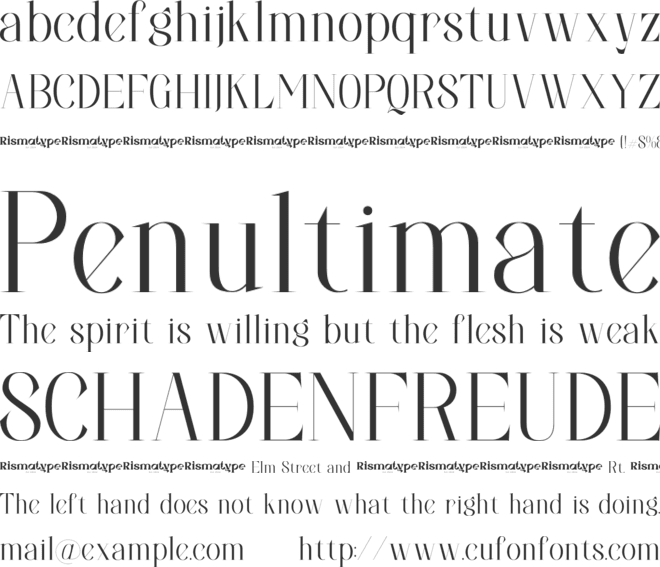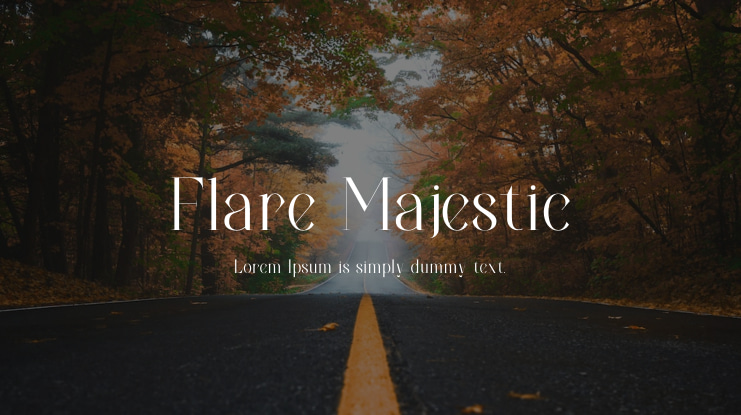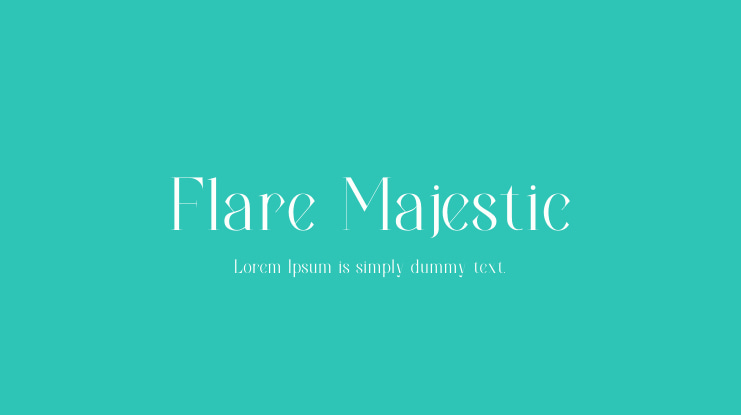
Flare Majestic Font Family
Risma Mulyasari
Flare Majestic
Discover the unique charm and distinctive character of Flare Majestic. Specifically designed to deliver a professional and modern look, this font is perfect for a wide range of creative projects, from branding and logos to posters and social media content. Every detail of the lettering has been carefully crafted to ensure optimal readability without sacrificing style.
Key Features:
Versatile: Ideal for a variety of creative projects, both digital and print.
High-Quality: Each character is optimized for clarity at all sizes.
Multilingual: Comes with multilingual characters, supporting various international languages.
Modern & Elegant: A perfect balance of simplicity and visual appeal.
Elevate your design projects with the professional touch of Flare Majestic.